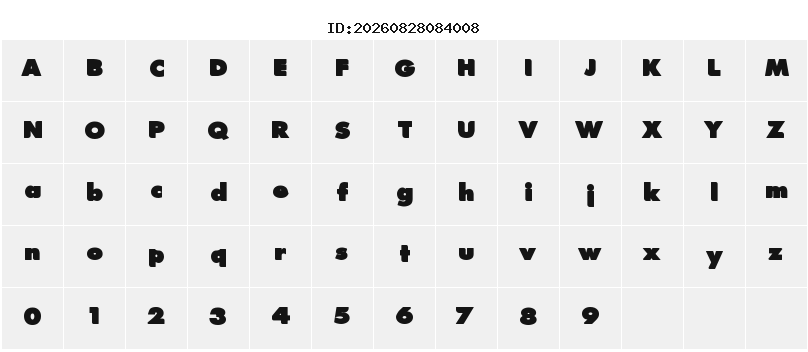
TrainStation Preview
• Font Name: TrainStation
• Full Font Name: TrainStation
• Version: Version 1.00 August 9, 2014, initial release
• Designer: Xerographer Fonts Max Infeld
• Manufacturer: Xerographer Fonts
• Description: Made at Xerographer Studios in Portland,OR
About TrainStation.ttf
TrainStation.ttf is a modern, elegant sans-serif font designed for ultimate readability and visual harmony. Perfect for branding, headlines, web design, and print materials.